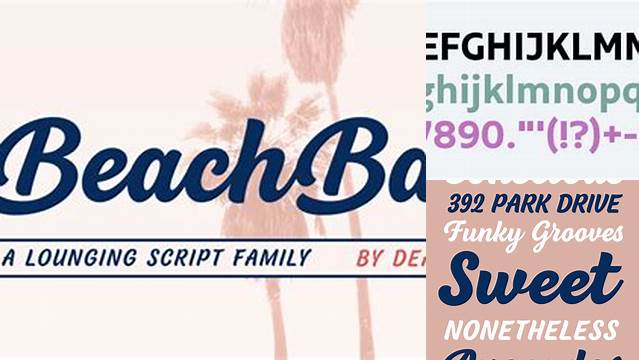
Beachbar Semibold Font: Free Download Guide
Hey guys! Are you on the hunt for that perfect font to give your projects a fresh, beachy vibe? Look no further! In this article, we're diving deep into the Beachbar Semibold font, a fantastic typeface that can add a touch of fun and sophistication to your designs. We'll explore what makes this font so special, where you can find it for free, and how to use it effectively in your projects. So, grab your sunglasses and let's get started!
What Makes Beachbar Semibold Font So Special?
When it comes to fonts, Beachbar Semibold stands out for its unique blend of playfulness and readability. This font isn't just another run-of-the-mill typeface; it's designed to evoke the laid-back, carefree spirit of a beach vacation. Imagine sipping a cool drink by the ocean – that's the kind of feeling Beachbar Semibold brings to your text. Its semi-bold weight gives it a strong presence without being overwhelming, making it perfect for headlines, logos, and even body text in certain contexts. The rounded edges and slightly condensed form give it a modern, approachable feel, ensuring it looks great both in print and on screen. The font's versatility is one of its key strengths. Whether you're working on a beach-themed poster, a summer party invitation, or a website for a surf school, Beachbar Semibold can seamlessly fit into your design. Its clean lines and clear structure make it highly legible, even at smaller sizes, which is crucial for maintaining readability across different mediums. Moreover, the font's unique character shapes add a touch of personality to your text, making it stand out from the crowd. In a world where generic fonts are a dime a dozen, Beachbar Semibold offers a refreshing alternative that can help your projects make a lasting impression. Its distinctive style makes it ideal for branding projects, where consistency and visual appeal are paramount. By using Beachbar Semibold, you can create a cohesive and memorable brand identity that resonates with your target audience. So, if you're looking for a font that combines style, readability, and a touch of beachy charm, Beachbar Semibold is definitely worth considering. Its unique characteristics make it a valuable asset in any designer's toolkit, capable of elevating your projects to the next level. Whether you're a seasoned professional or just starting out, experimenting with Beachbar Semibold can open up a world of creative possibilities. This font is a fantastic way to bring a touch of summer and relaxation to your designs, making it a go-to choice for a wide range of projects.
How to Use Beachbar Semibold Effectively in Your Projects
Okay, so you've got your hands on the awesome Beachbar Semibold font – now what? Using a font effectively is just as important as choosing the right one. Beachbar Semibold, with its unique blend of playfulness and modern design, can be a fantastic asset in a variety of projects, but it's crucial to use it in a way that complements your overall design. One of the key considerations is context. Beachbar Semibold shines in projects that have a relaxed, informal, or beach-themed vibe. Think summer party invitations, vacation brochures, surf school websites, or even casual restaurant menus. Its friendly and approachable style makes it perfect for designs that aim to evoke a sense of fun and relaxation. However, it might not be the best choice for more formal or corporate settings, where a more serious and professional font might be more appropriate. When using Beachbar Semibold, consider its weight and size. The semibold weight gives it a strong presence, making it ideal for headlines and titles. Its legibility also makes it suitable for body text, but be mindful of the overall visual balance. Too much Beachbar Semibold in a large block of text can feel overwhelming, so try pairing it with a simpler, more neutral font for body copy. Font pairing is an art in itself, and finding the right combination can elevate your design. Beachbar Semibold works well with clean, sans-serif fonts like Open Sans or Lato, which provide a nice contrast while maintaining readability. It can also be paired with a classic serif font like Merriweather for a more sophisticated look, especially in projects that need a touch of elegance. Color is another crucial element to consider. Beachbar Semibold looks fantastic in vibrant, summery colors like blues, yellows, and greens, which enhance its beachy feel. However, it also works well in more muted tones for a subtler effect. Experiment with different color palettes to see what best complements your design and brand identity. In addition to its visual appeal, consider the emotional impact of Beachbar Semibold. Fonts have the power to evoke emotions and set the tone for your message. Beachbar Semibold's playful and friendly style can create a sense of warmth and approachability, making it perfect for projects that aim to connect with the audience on an emotional level. Whether you're designing a logo, a website, or a print advertisement, using Beachbar Semibold thoughtfully can help you communicate your message effectively and create a lasting impression. So, go ahead and experiment with this versatile font, and let your creativity flow!
Alright, guys, let's wrap things up! We've explored the wonderful world of Beachbar Semibold font and how you can snag it for free. To recap, Beachbar Semibold is a fantastic typeface that brings a touch of beachy charm and modern playfulness to any design. Its versatility makes it perfect for a wide range of projects, from summer-themed invitations to casual branding materials. We've talked about what makes this font so special – its unique blend of readability and style, its ability to evoke a relaxed and friendly vibe, and its overall visual appeal. We've also covered where you can find Beachbar Semibold for free, emphasizing the importance of downloading from reputable sources like Google Fonts, Font Squirrel, DaFont, and 1001 Fonts while always being cautious and checking the licensing terms. And finally, we've dived into how to use Beachbar Semibold effectively in your projects. Remember to consider the context, weight, size, font pairing, color, and emotional impact to make the most of this awesome font. Think about the overall message you want to convey and how Beachbar Semibold can help you achieve that. Experiment with different combinations and styles to find the perfect fit for your design. Whether you're a seasoned designer or just starting out, Beachbar Semibold can be a valuable addition to your font collection. Its unique character and versatility make it a go-to choice for projects that need a touch of fun and relaxation. So, go ahead and download Beachbar Semibold today and start creating designs that capture the essence of summer and the carefree spirit of the beach! With the right font, your projects can truly stand out and make a lasting impression. Happy designing, and may your creative endeavors always be filled with sunshine and good vibes!